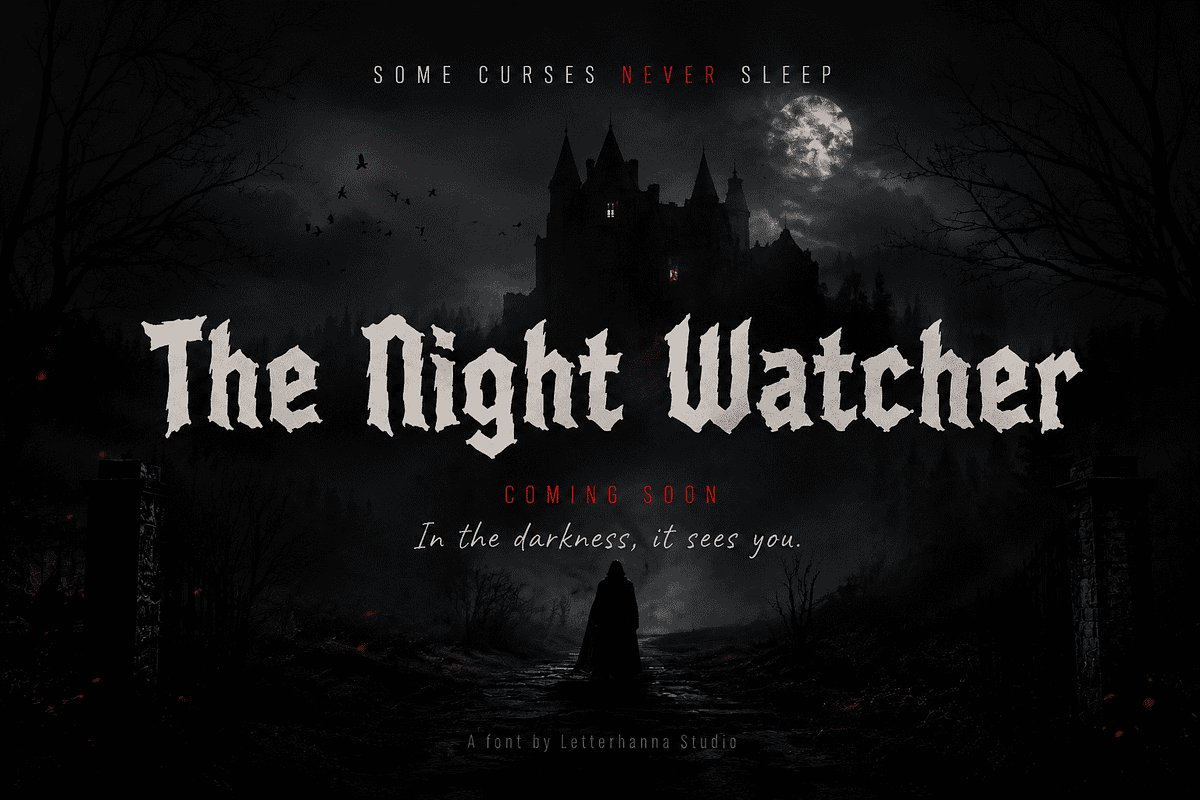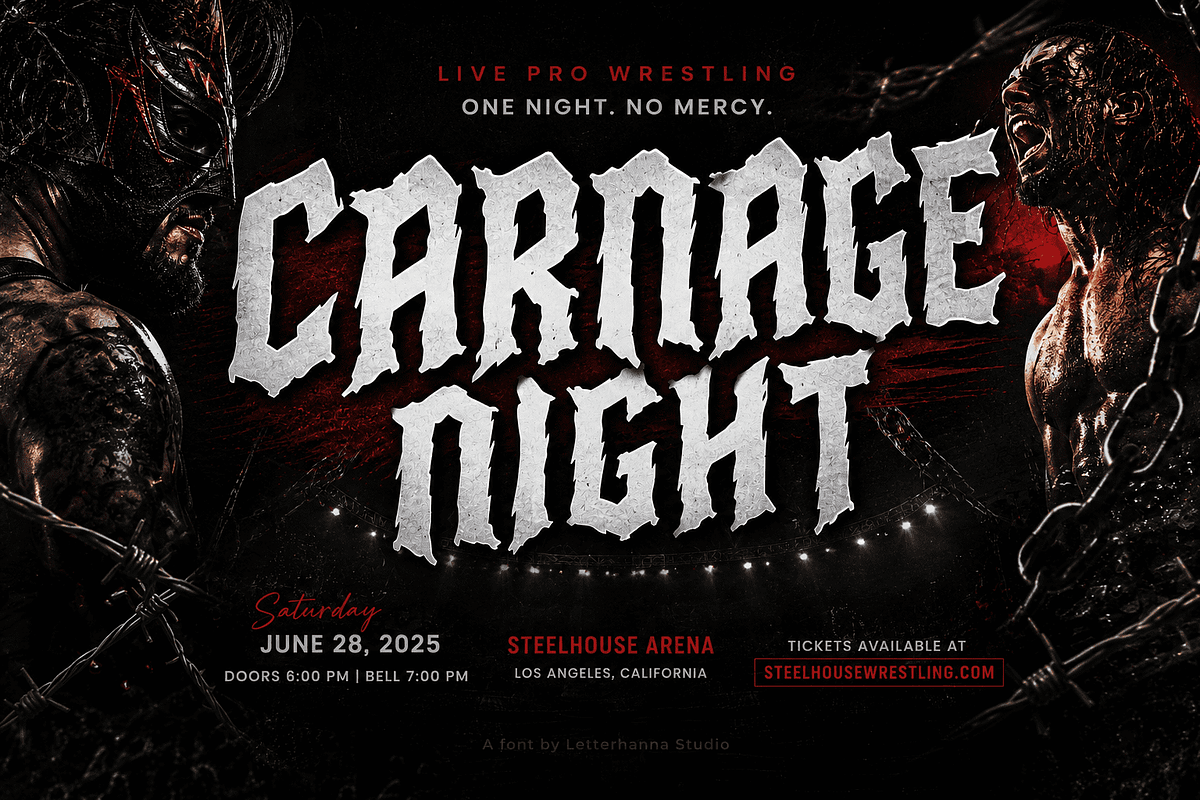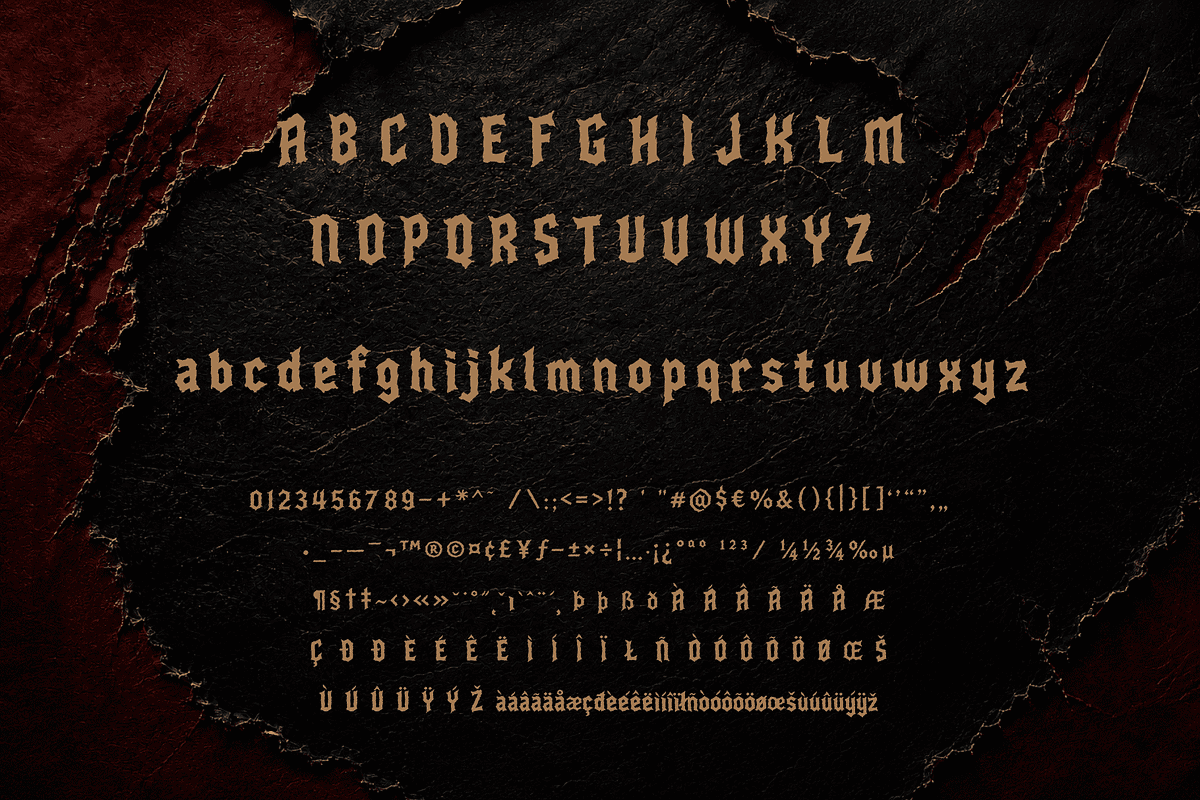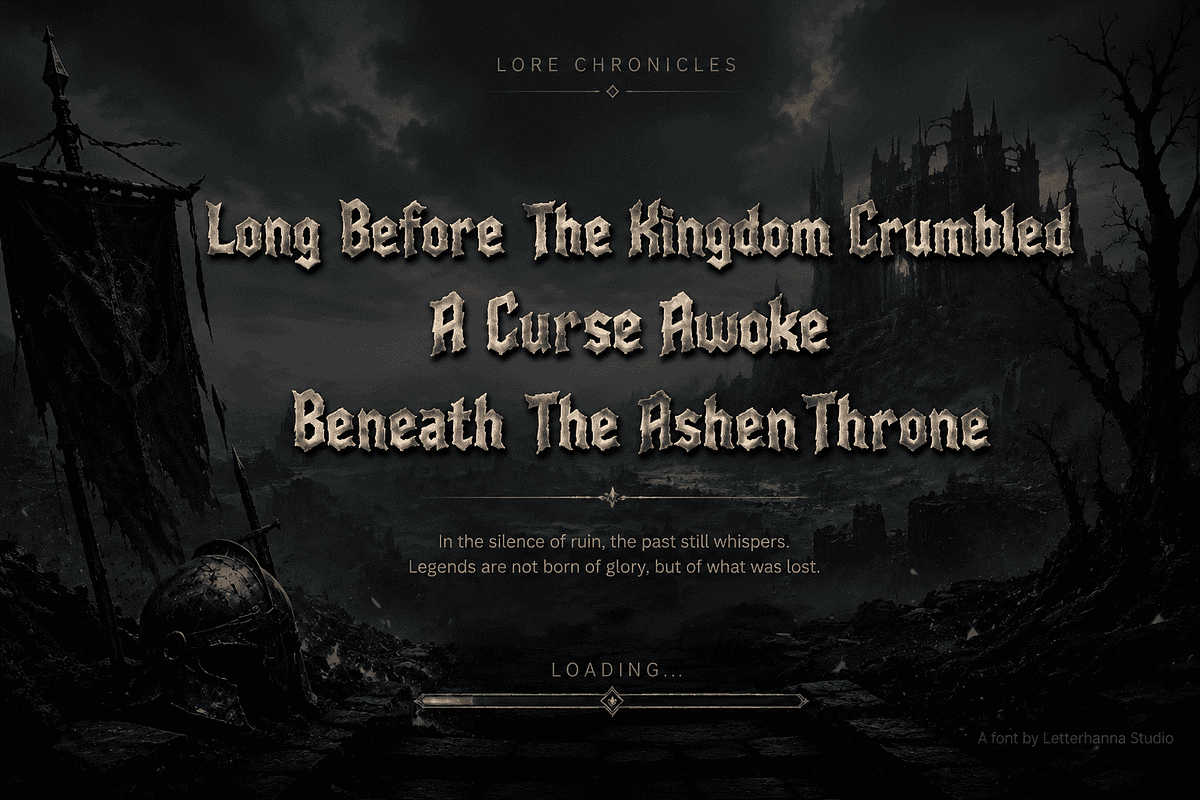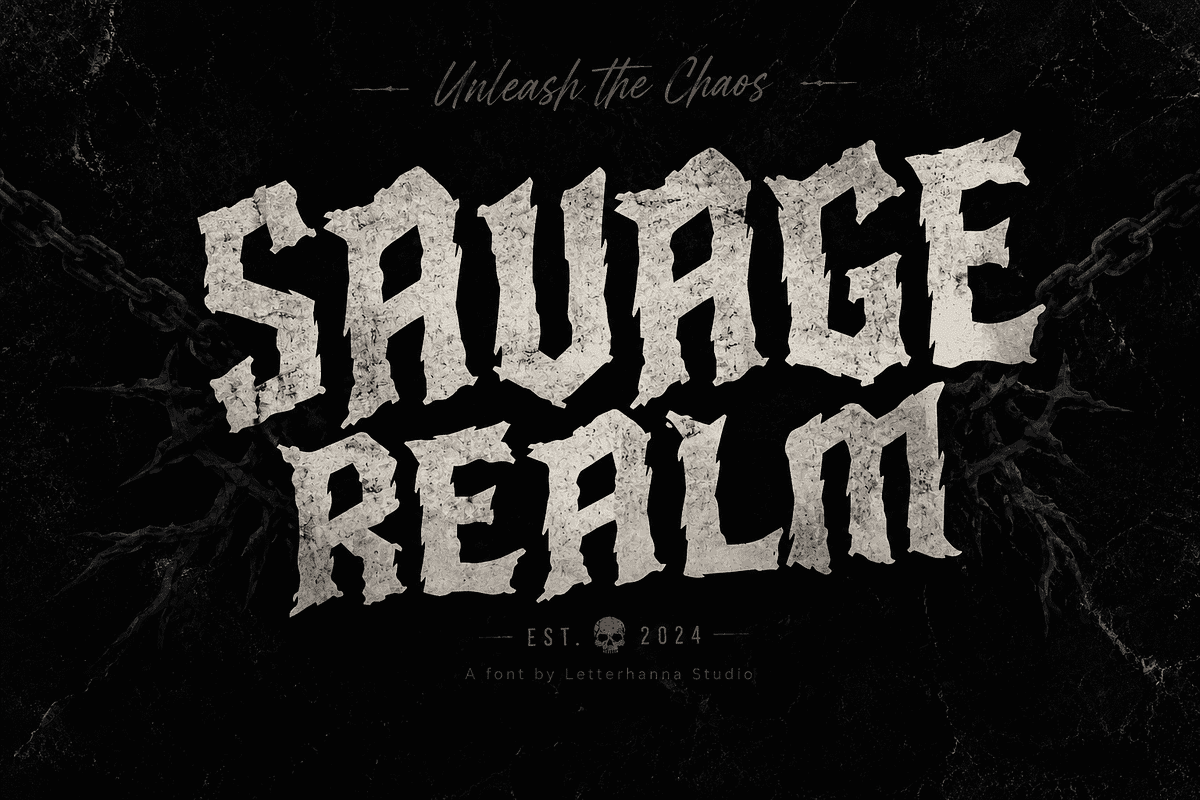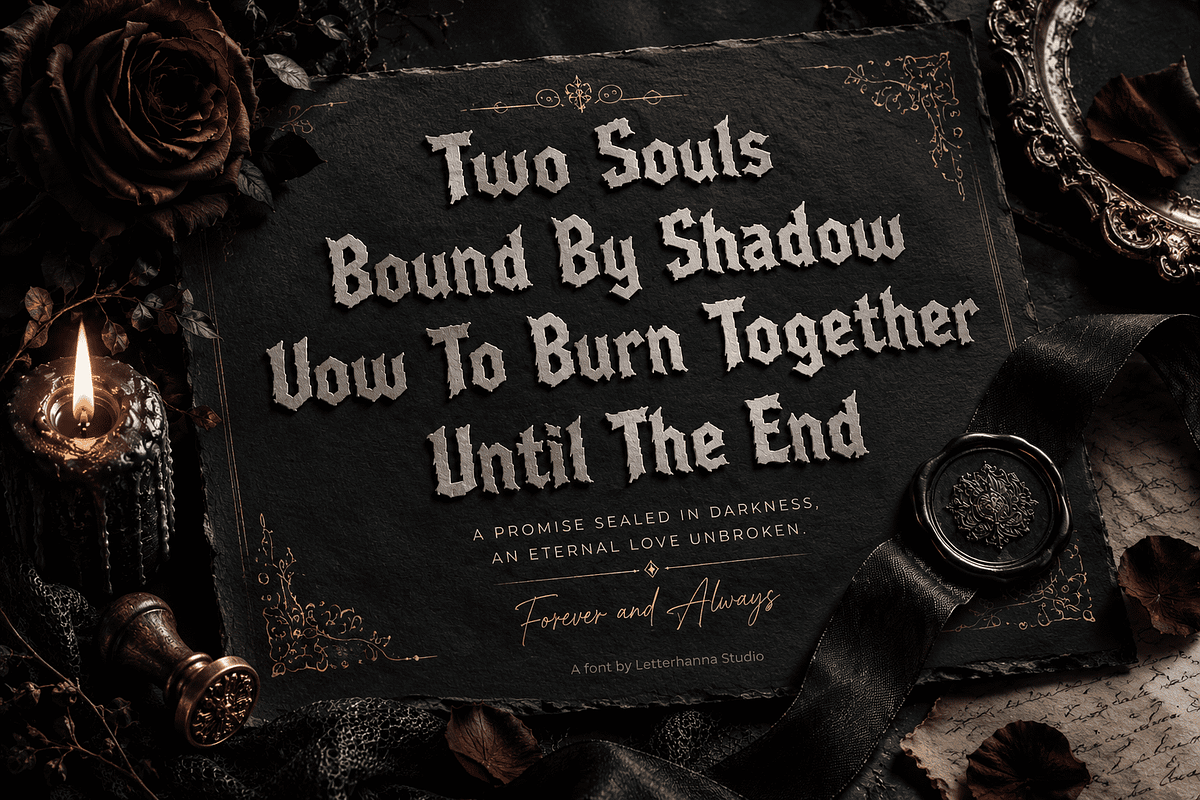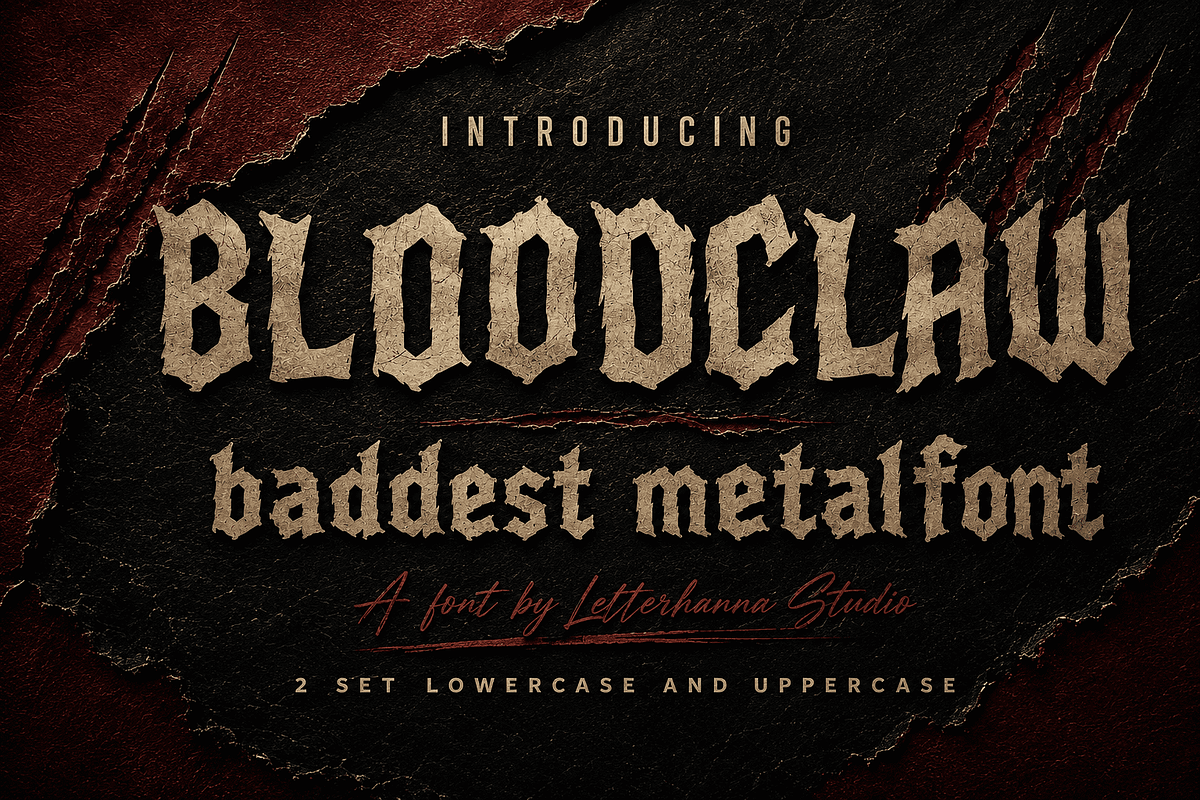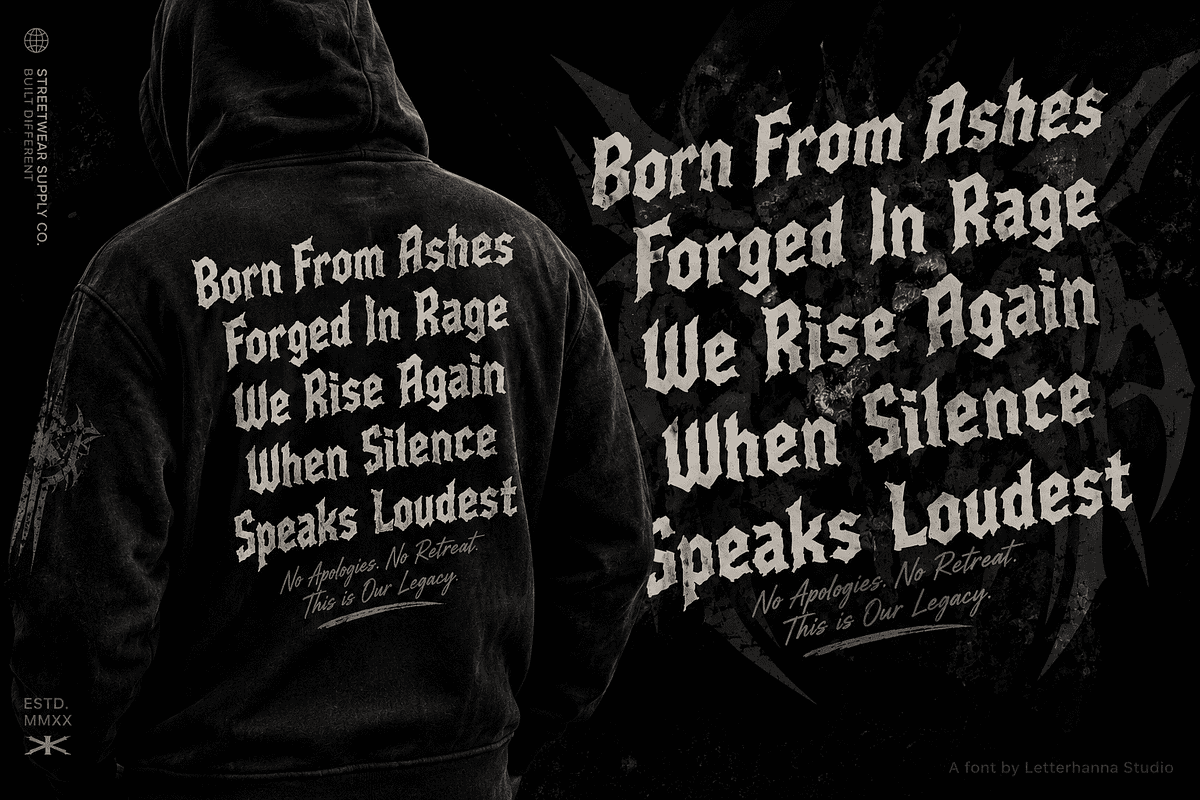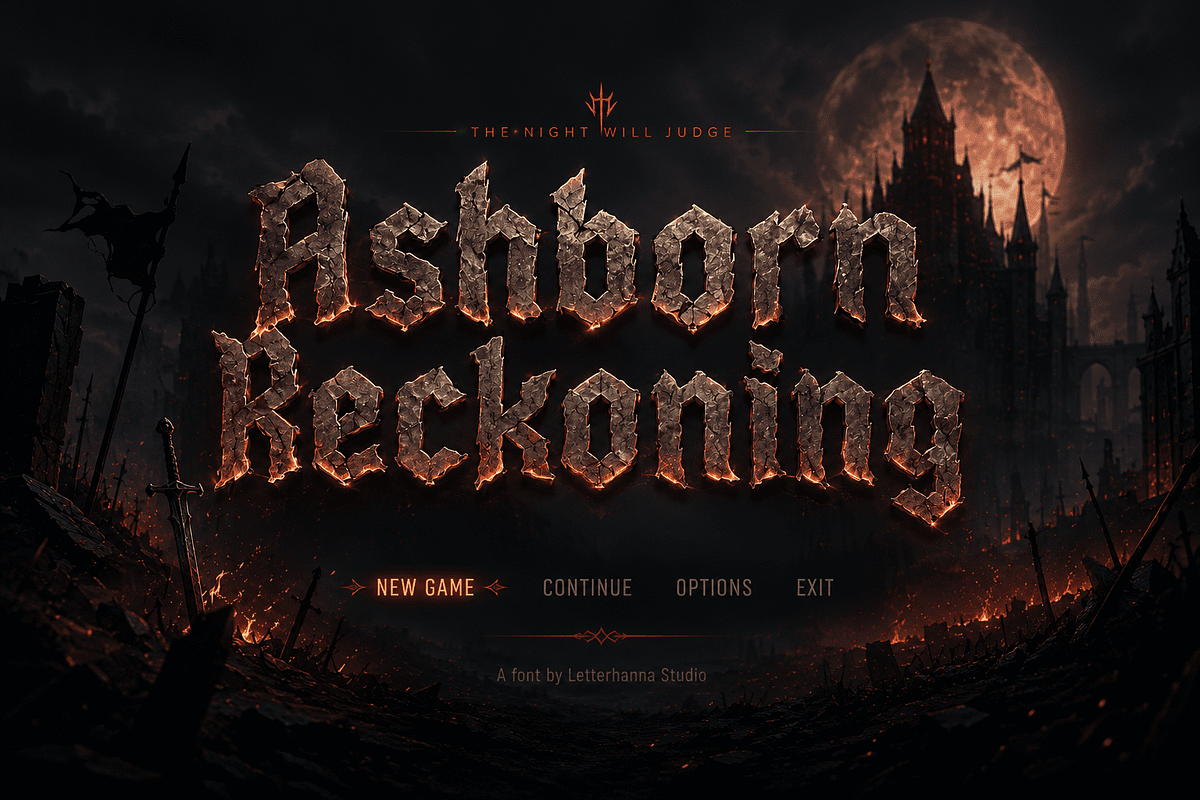
Bloodclaw Font – The Baddest Font
Every subculture has its own visual language. Punk had spray paint. Grunge had torn flannel. Metal has always had its typography — jagged, brutal, unmistakable. Bloodclaw was designed to carry that legacy forward as one of the boldest, most aggressive display fonts available today, and honestly, it might be the baddest font currently sitting in any design library.
A Font Born from a Band's Frustration
Imagine a band finishing their heaviest album yet, only to realize every font they try for the cover looks too clean, too safe, too nice. They need something that sounds like the music — distorted, sharp, unapologetic. That's the exact frustration Bloodclaw was created to solve. Instead of another generic "grunge" font with a light texture filter slapped on top, Bloodclaw was built letter by letter with intentional roughness — splintered edges, uneven weight, and a battle-worn finish that feels torn straight from a warzone rather than drawn on a screen.
This is what real metal typography looks like: not decoration, but attitude. Every character carries weight, tension, and a sense of controlled chaos that mirrors the energy of heavy music itself.
The Anatomy of Aggression
What makes Bloodclaw stand out is how deliberately imperfect it is. The strokes vary in thickness, the corners look clawed rather than cut, and the baseline shifts just enough to feel alive instead of mechanical. It blends rough blackletter influence with horror-grunge texture, creating a hybrid style that feels both ancient and violently modern.
It's one of the most effective fonts that capture anger because it doesn't rely on obvious symbols like skulls or flames to sell the mood — the letterforms themselves do the emotional work. A single word set in Bloodclaw instantly reads as dangerous, defiant, and intense.
Real-World Applications
Bloodclaw fits naturally into album covers, band merch, horror movie posters, tattoo parlor signage, gaming title screens, wrestling event flyers, and streetwear branding. It also works beautifully for Halloween-themed products, dark fantasy book covers, and any brand trying to stand out in a saturated market of soft, minimal typography.
Because the font maintains strong structural clarity despite its rough texture, it remains legible at both large headline sizes and smaller product-label applications — a detail many aggressive display fonts overlook.
Why Designers Keep Coming Back to Fonts Like This
Trends come and go, but demand for raw, high-impact typography never disappears. Metal bands need it. Horror creators need it. Streetwear brands building an edgy identity need it. Bloodclaw answers that demand directly, giving creators a ready-made way to inject aggression into a project without hours of manual distressing or custom lettering work.
Time to Add Some Bite to Your Designs
If your next project needs to feel dangerous, defiant, or larger than life, Bloodclaw is ready to deliver. This isn't a font you use quietly in the background — it's a font you put front and center.